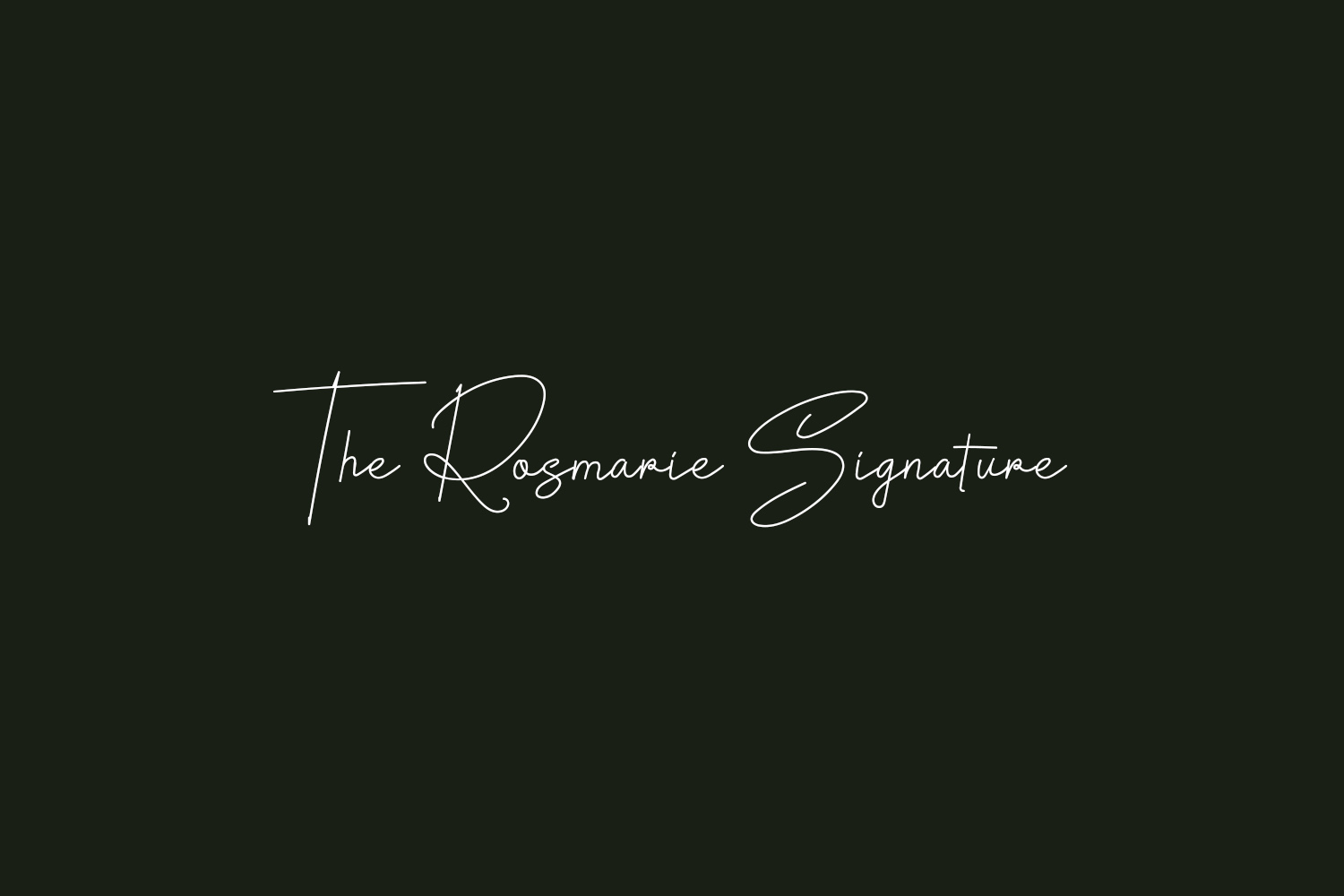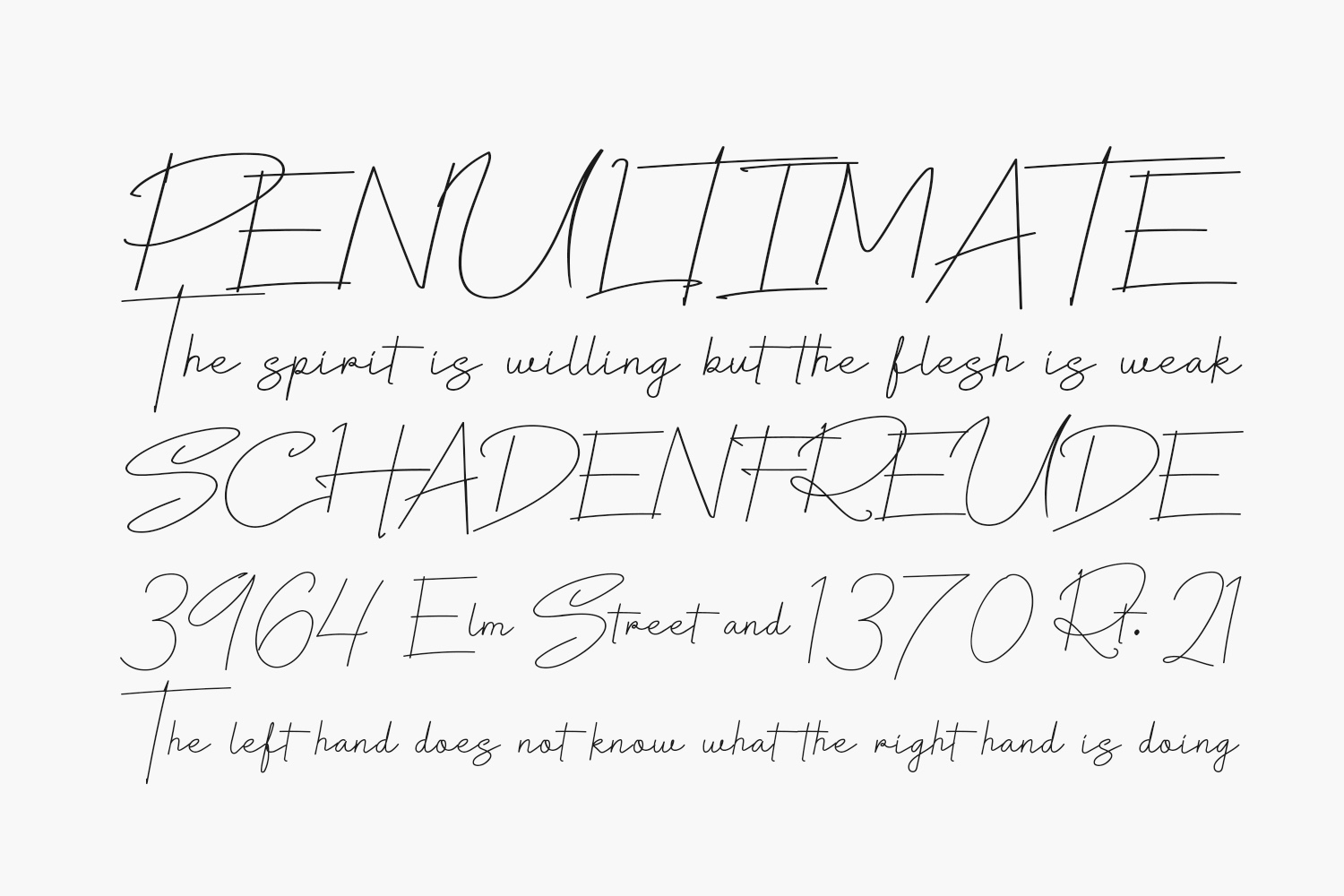
The Rosmarie Signature Free Font is a thin and fashionable handwritten font. Expertly designed to make your creation look out of this world, this font has the potential to take your creative ideas further. The Rosmarie Signature Free Font was designed by Ibra Creative and is free for personal use only. Please purchase the full version for commercial use.